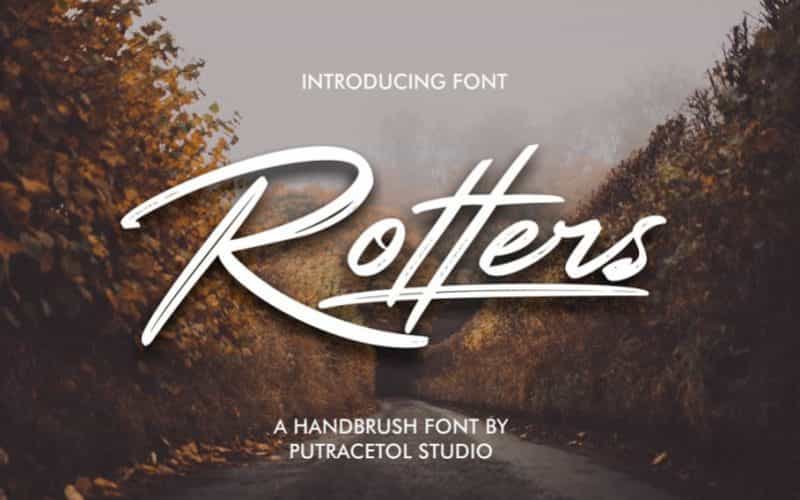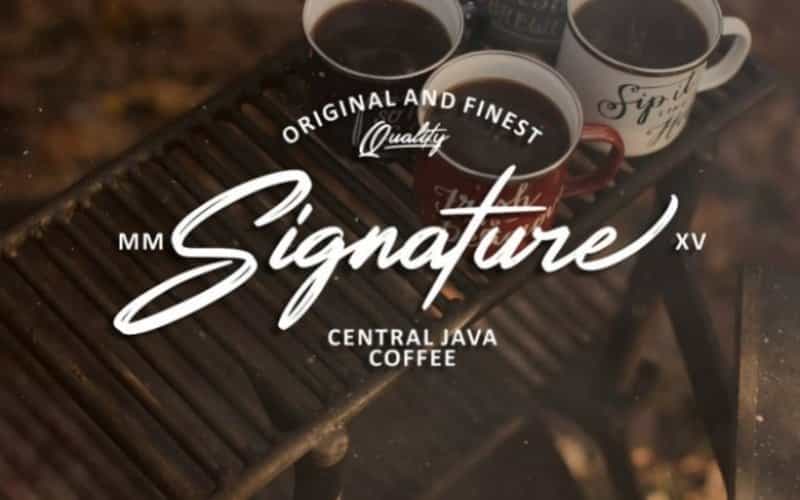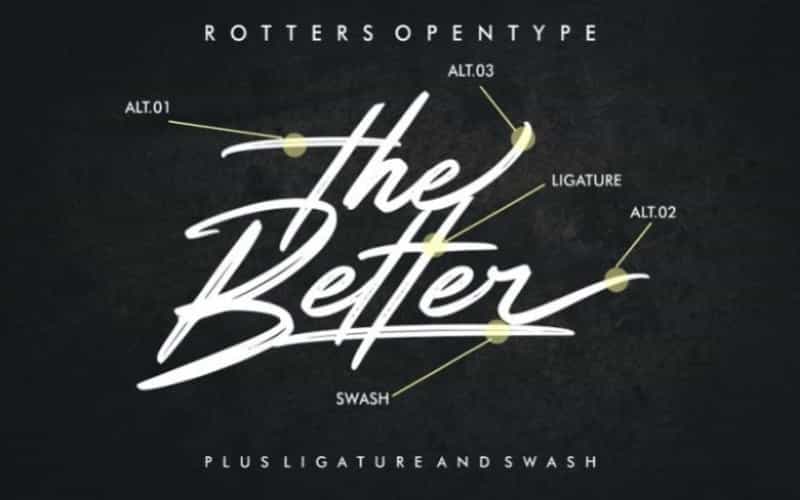
Rotters is a modern brush font with handwriting style and natural outlines, realistic and rough, with the look of dry brush. Rotters great for logo, signature, quote, business, wedding, social media, advertisement, packaging, product, label, photo, water mark, invitation, card, and many other projects.